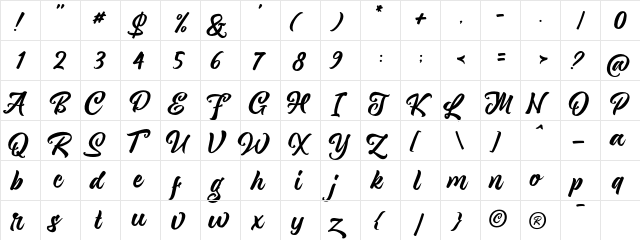
Magnison Script Free Demo Regular
| Designer | Hendra Maulia |
Design Context for Magnison Script Free Demo Typeface
Magnison Script Free Demo brings a calligraphic fluidity to the page — its connecting strokes and expressive curves give it an unmistakably human quality.